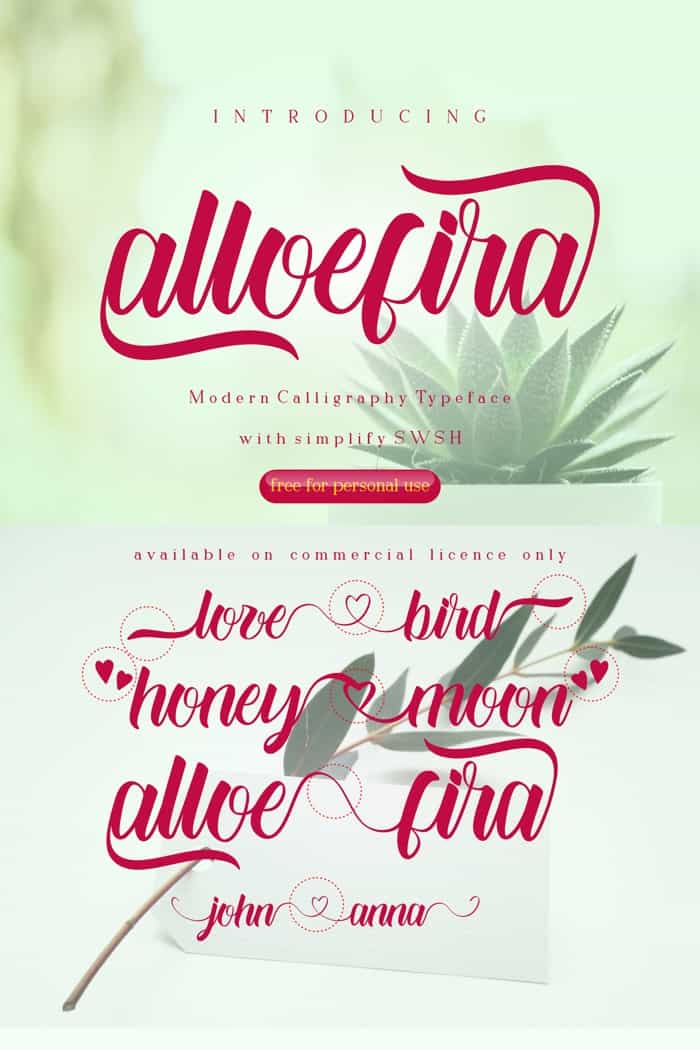
Alloefira Font is a modern and natural script font that was inspired by the old-fashioned style of handwriting. It’s distinctive, fun and elegant. A great option for a card or invitation, web site or quote, promotion monogram logo, and so lots more.